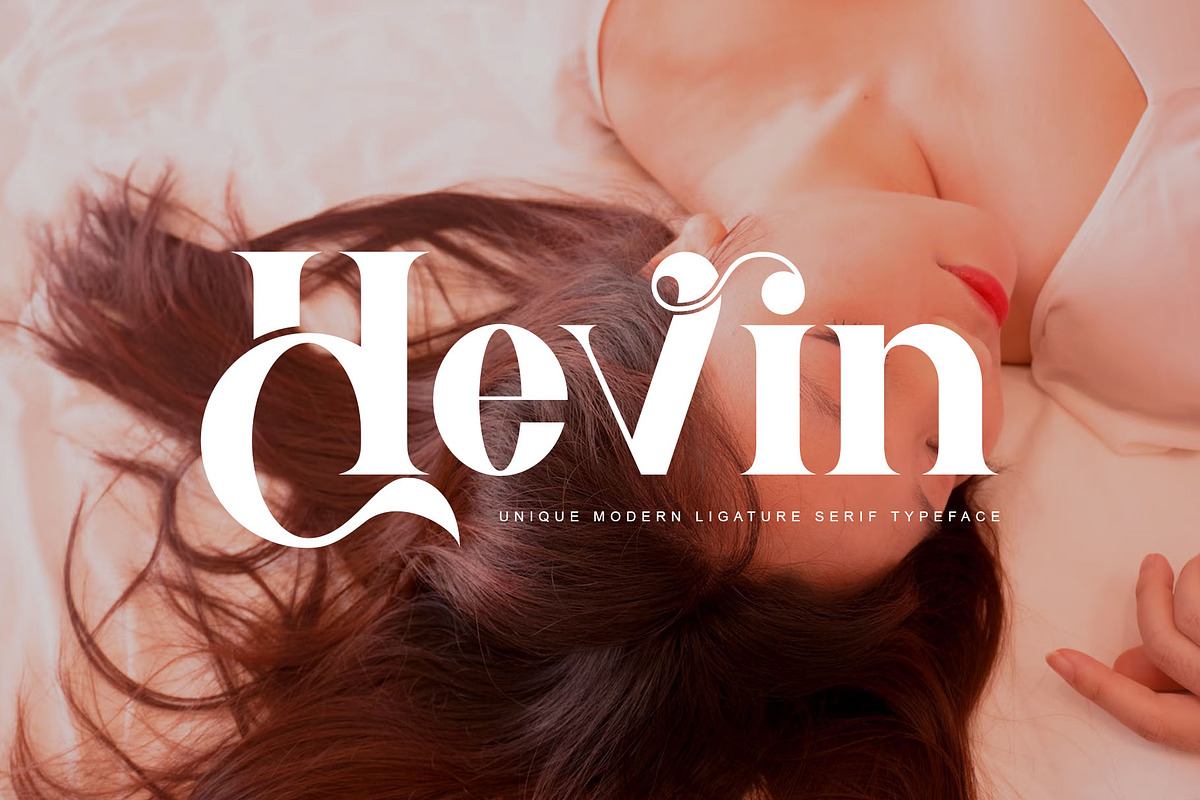
Hevin Ligature Serif Typeface Free Download is a sophisticated and high-fashion serif font featuring stylish ligatures and elegant letterforms. Designed for modern branding, editorial layouts, luxury packaging, and wedding stationery, Hevin brings a refined and artistic flair to any project. Its unique ligatures add a customized, designer feel to headlines and logos.
With high contrast strokes and gracefully sculpted serifs, Hevin Ligature Serif Typeface Free Download strikes the perfect balance between classic elegance and contemporary edge. The font supports multilingual characters and works beautifully across both print and digital designs.